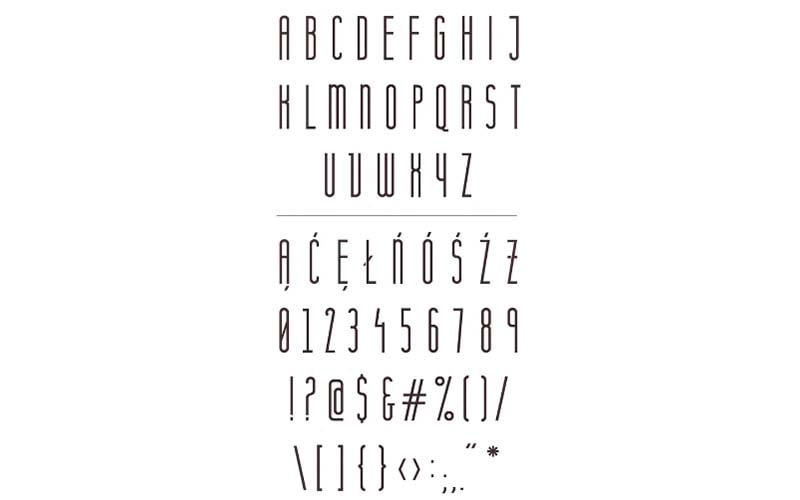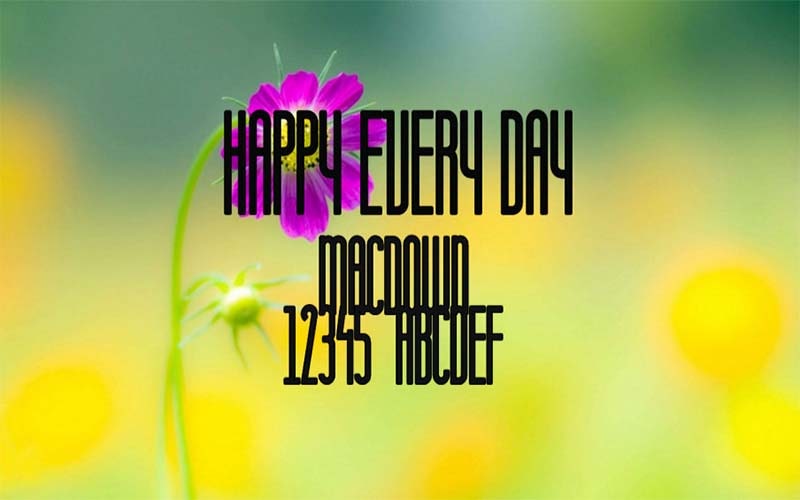
Komoda Font is a Display, Sans serif typeface. This versatile font is best suited for editorial designs, headlines, and poster designs as well.
Joanna Angulska is known as the graphic designer who took charge to design this font. For the first time, it was published on October 12, 2015.
This enthralling and fascinating font contains only one unique style such as the “Komoda Regular” font style that gives an amazing look to the texture.
This display font family comes in a single version that contains 108 defined characters and more than 100 sample glyphs counted in number with 1000 units per EM.
Komoda Font
It supports multiple languages that make it acquainted all over the world. It works great as a display face but it also works well for small-size texts.
This extra tall free version font is available in all lowercase, uppercase letters, all caps, and some special characters as well. Let’s take a look at its beautiful texture.